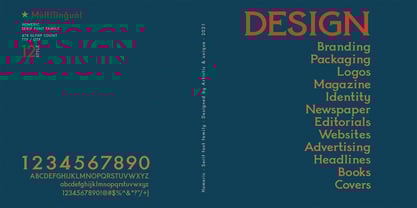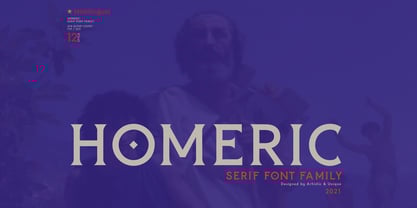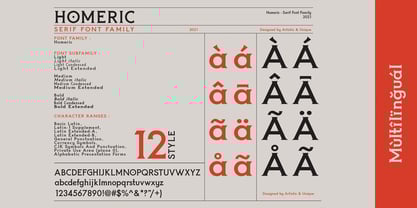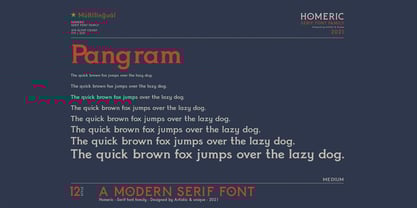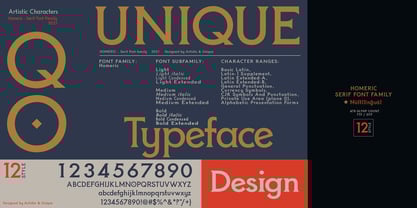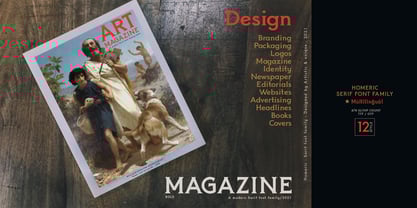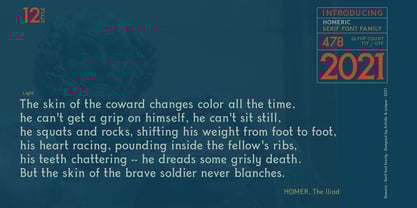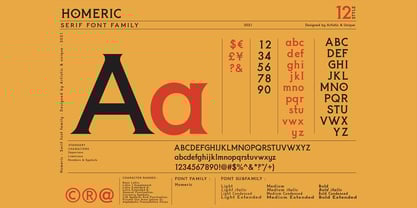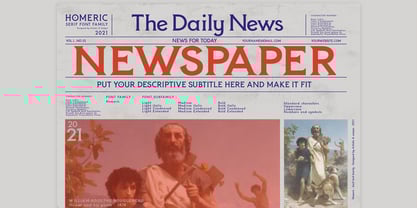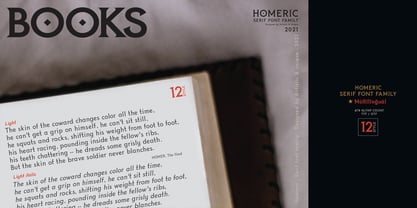
Homeric
The Homeric Font Family was designed by Osman Taner Kucukgenc and published by Artisticandunique. Homeric contains 12 styles and family package options. More about this family
Homeric - Serif font Family - Multilingual Supports - 12 Style
In the modern age we live in, the influence of ancient culture can be seen in many areas. Fonts and alphabets are one of them.
Inspired by ancient Greek fonts, the Homeric serif font has evolved into the character structures of today's modern serif fonts. Due to its structure, this font can meet your needs in all your modern or classic creative projects.
Absolutely perfect for logos, headlines, magazines, invitations, packaging design, books, branding and more! Homeric Serif font family is the perfect font for your design ideas.